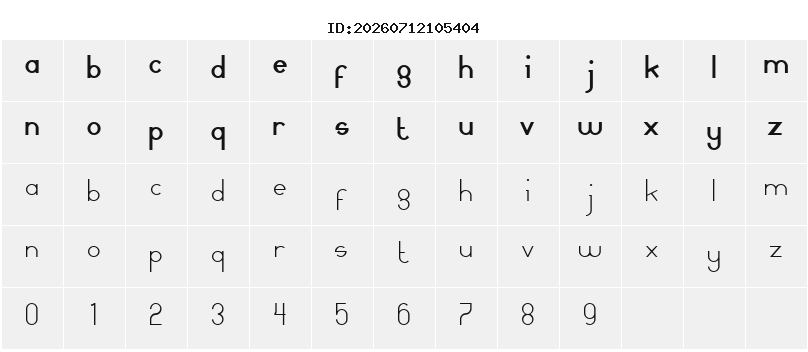
MammaGamma Preview
About MammaGamma.ttf
MammaGamma.ttf is a modern, elegant sans-serif font designed for ultimate readability and visual harmony. Perfect for branding, headlines, web design, and print materials.